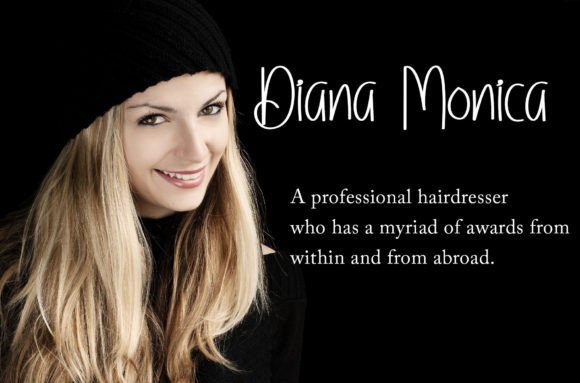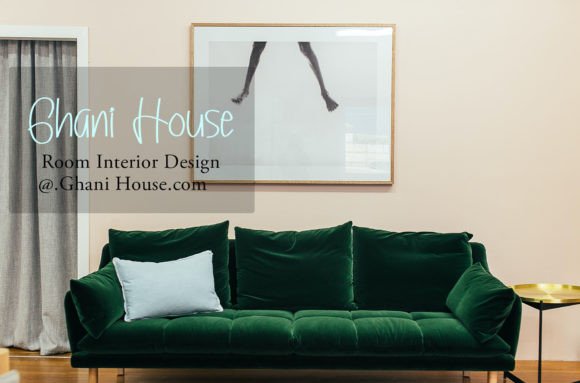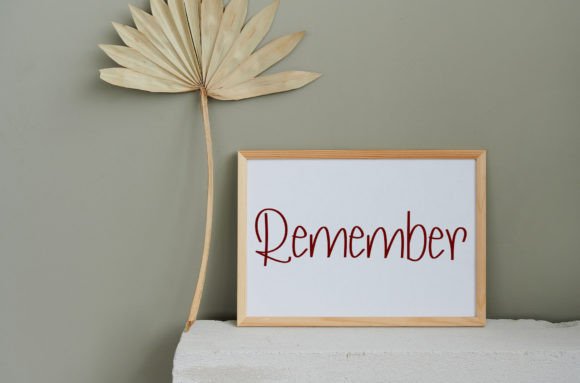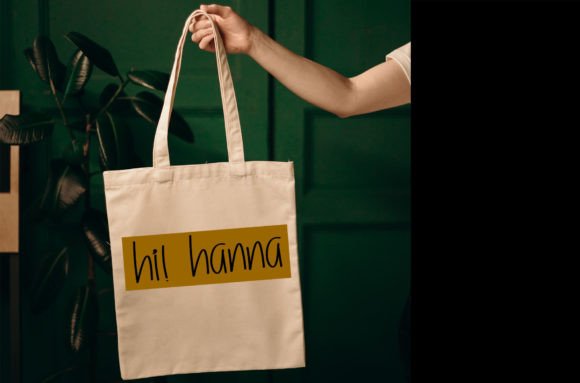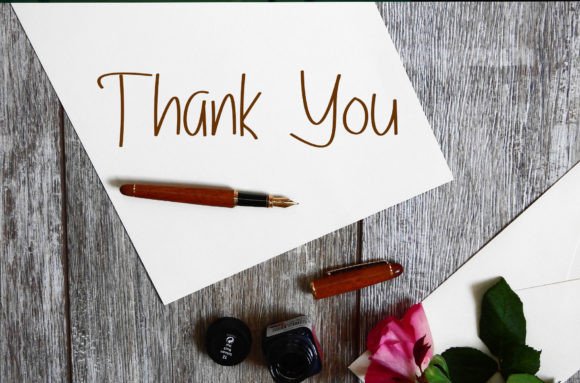
Eminent Font: Playful Handwriting for Whimsical Designs
“Eminent” is a fun and whimsical handwritten font that brings a touch of playfulness to your design projects. Its versatile nature makes it perfect for various creative applications.
Key Features of Eminent Font
- Quirky Style: Eminent combines fun with whimsy for unique designs.
- Versatile Use: Suitable for many projects, from branding to invitations.
- Playful Character: Adds a lighthearted and creative touch to your work.
Eminent’s playful style is ideal for creating memorable logo designs that convey a fun and approachable brand image.
Invitations and Greeting Cards
Use Eminent to design eye-catching greeting cards and invitations that stand out with their whimsical charm.
Poster and Print Design
The font’s quirky nature makes it perfect for creating engaging posters and print materials that capture attention.
Why Choose Eminent Font?
Eminent offers more than just playful letters. Here’s why it stands out:
- Creates a fun and engaging feel in your designs
- Versatile enough for both personal and professional projects
- Helps make your work more memorable and unique
By using Eminent, you open up new design possibilities. Its whimsical style works well in many contexts, from website headers to social media graphics. The font’s playful nature can inspire creative ideas and help you approach projects from a fresh, fun perspective.
Eminent in Digital Design
In the digital realm, Eminent excels in creating engaging social media content and children’s book designs. Its handwritten style can help capture attention and increase engagement on various online platforms, making it a valuable asset for digital marketers and content creators.
If you’re looking for a font that’s both fun and versatile, Eminent is an excellent choice. It’s perfect for adding a playful touch to your work, especially for projects that need a whimsical, approachable feel.
Explore how Eminent can transform your designs. From branding projects to personal crafts, this font brings a delightful and engaging quality to your creations.